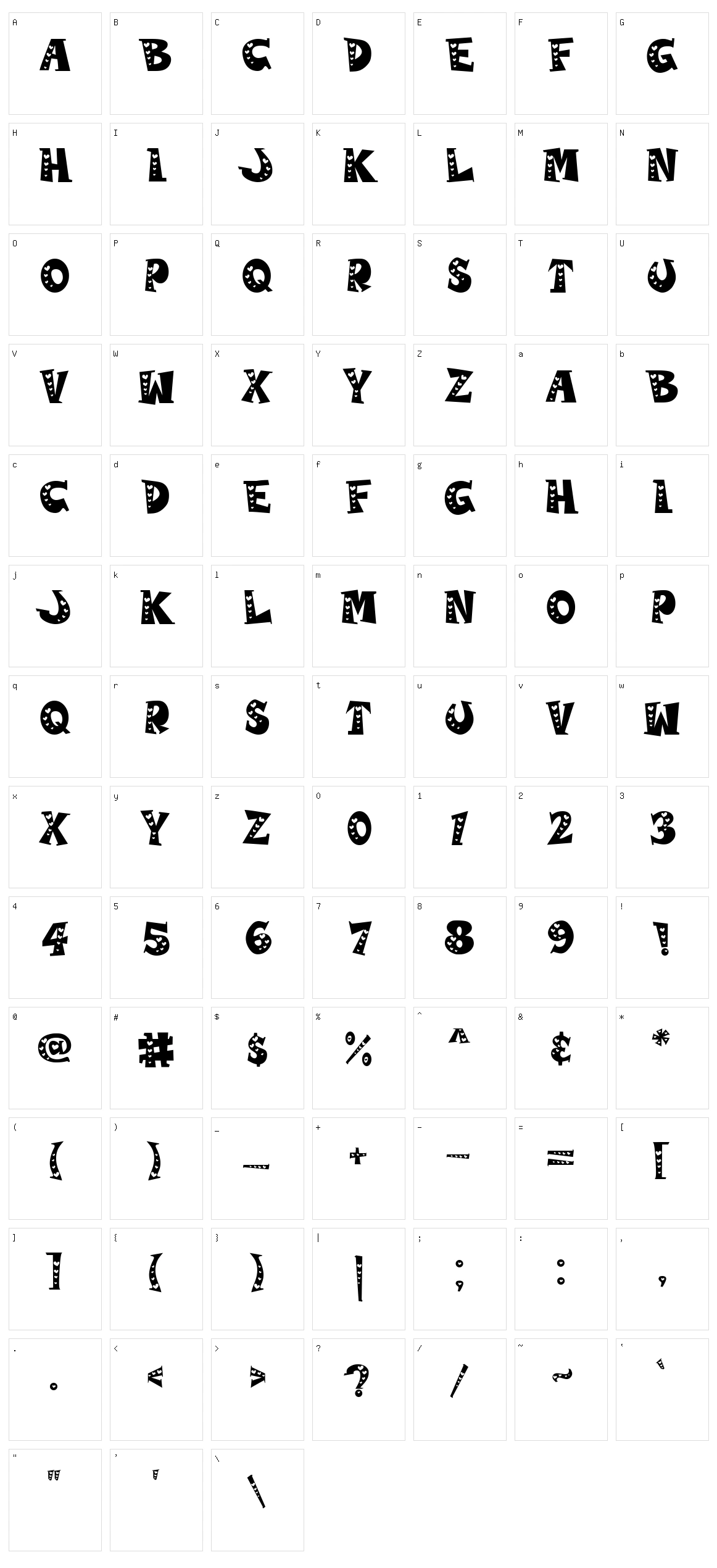
The free font Kiddie Love is carefully designed by Cikareotype Studio, showcasing a thoughtful balance of creativity and usability and falls under the Valentine font style. When you download the ZIP file, it contains only 179.79 KB of font files, making it lightweight and quick to download. Please review the license details below to understand permitted usage and distribution rights. If license information is not available, we recommend using this font for personal projects only or contacting the author directly for commercial usage permissions.